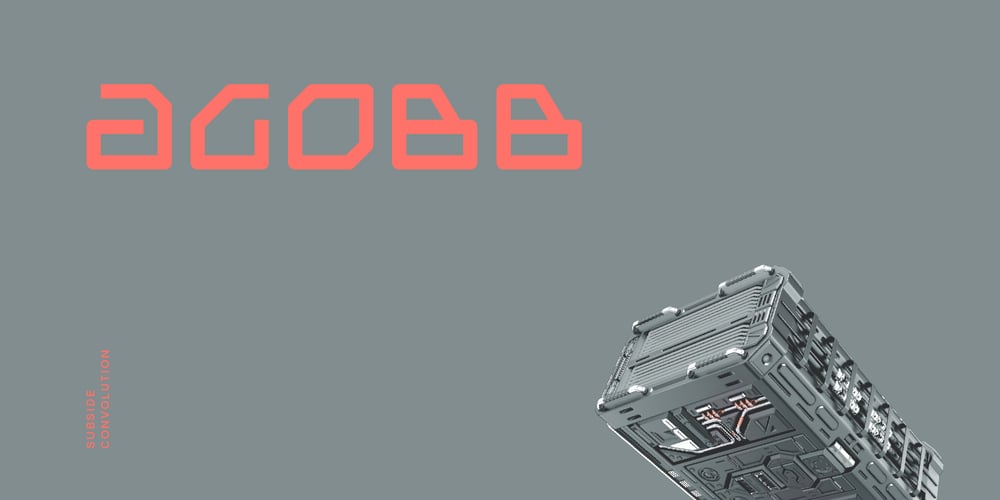
Agobb Font Family was designed by Andrew Seah and published by Baqoos. Agobb contains 4 styles and family package options. Agobb is a subside convolution tech sans apt for headline, editorial, branding, packaging, printed materials and typographic applications. 200+ glyphs with ligatures and fractions provided in opentype .otf and .woff format.